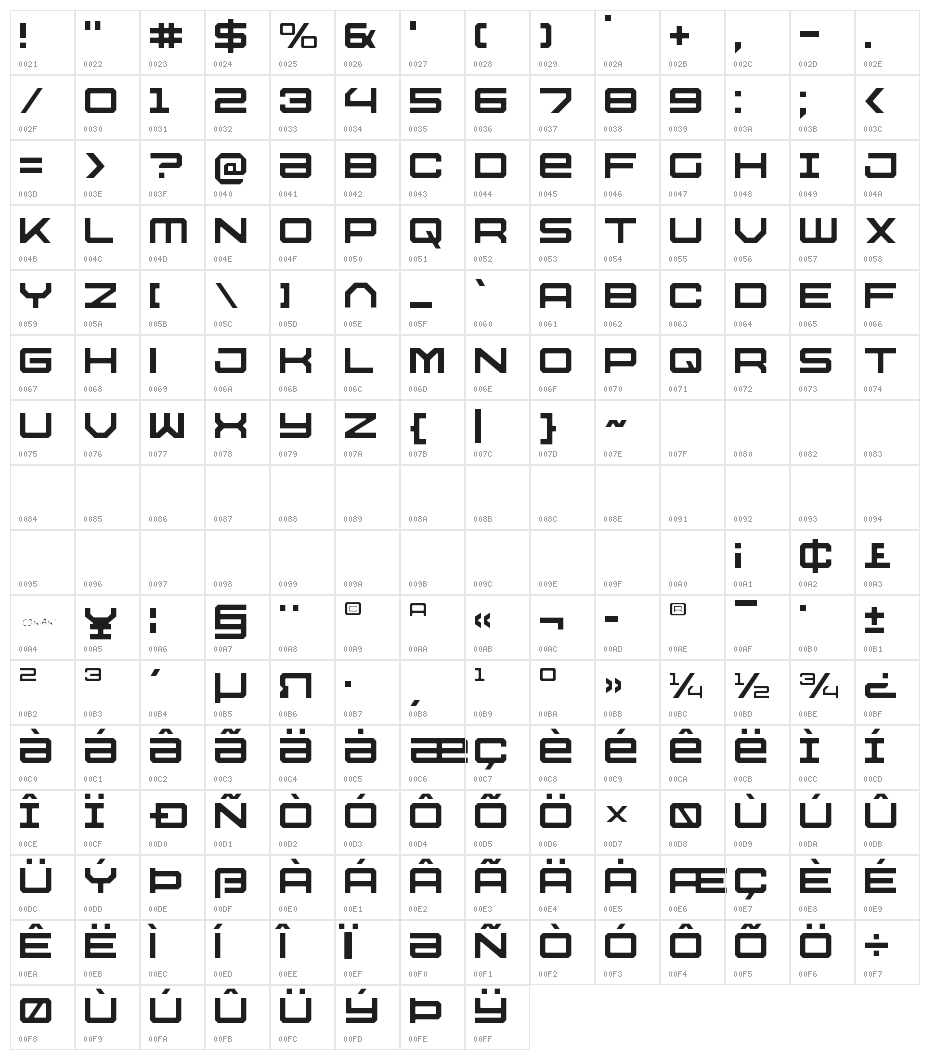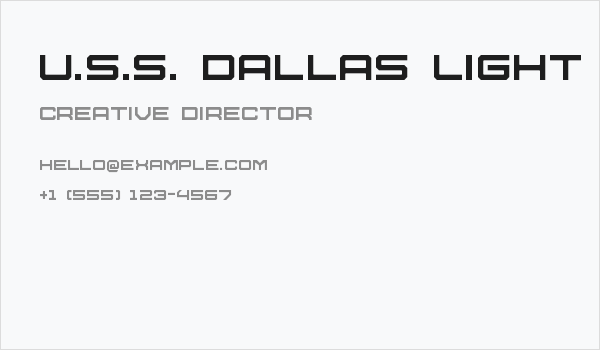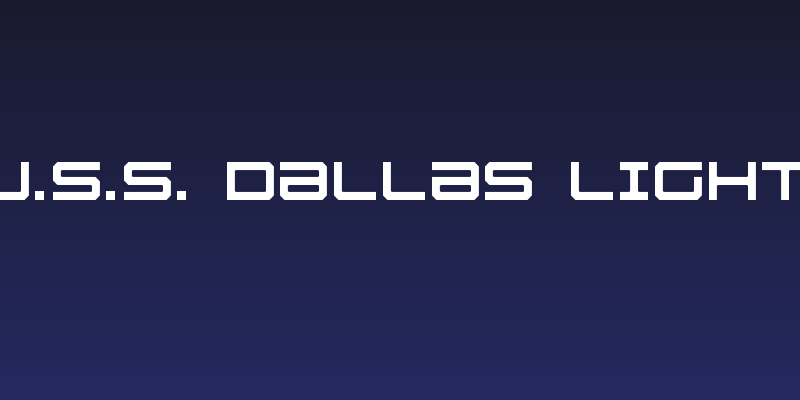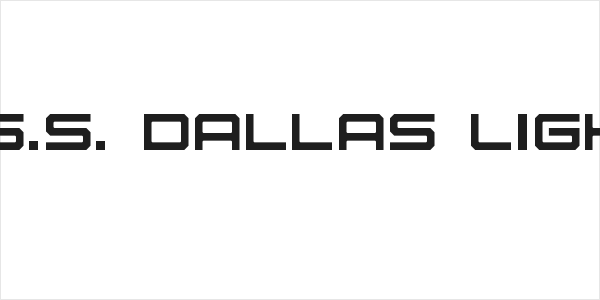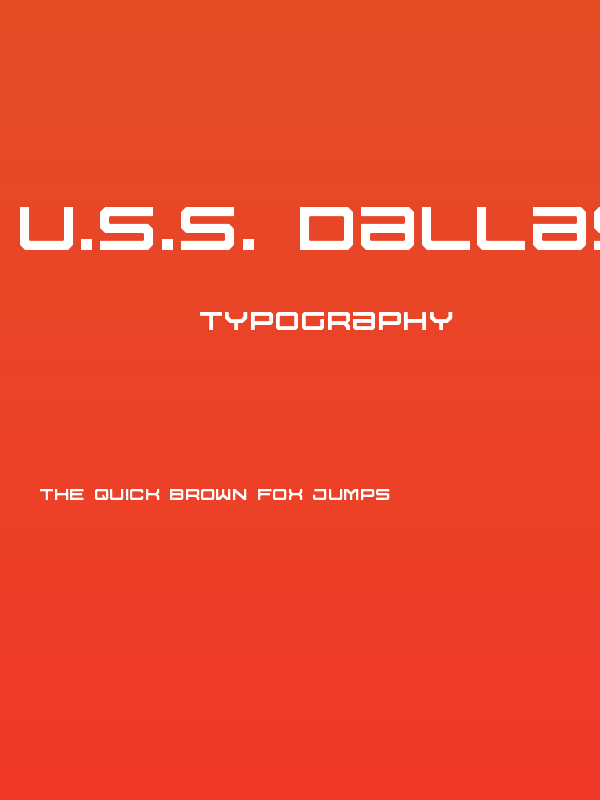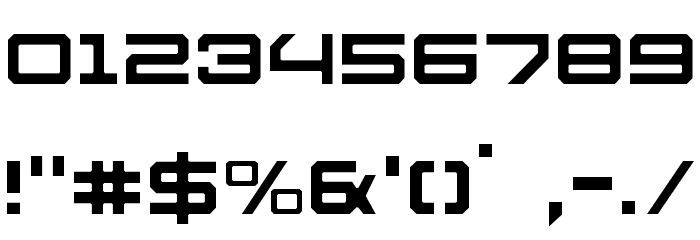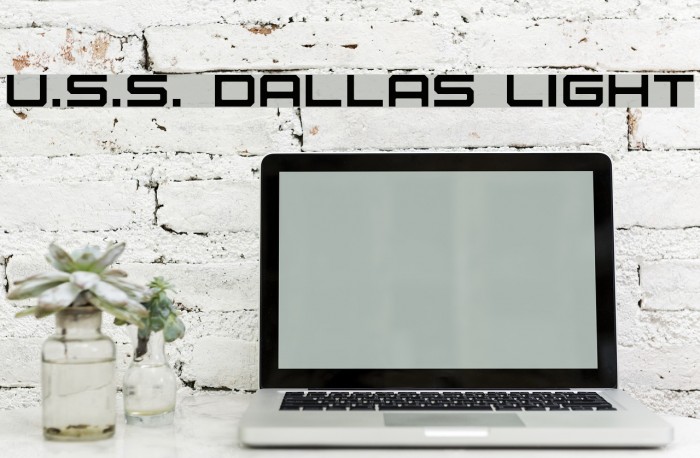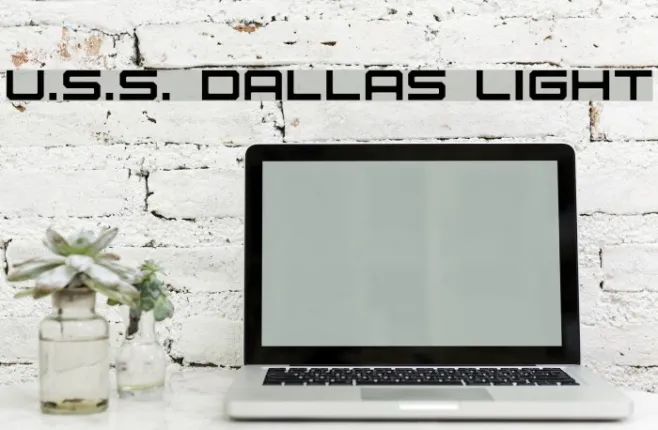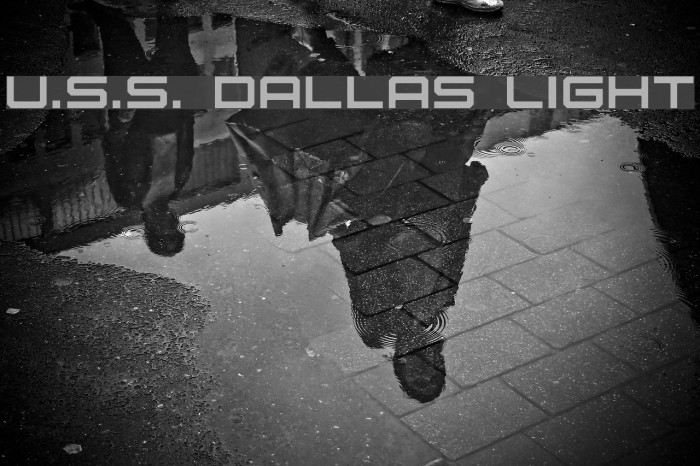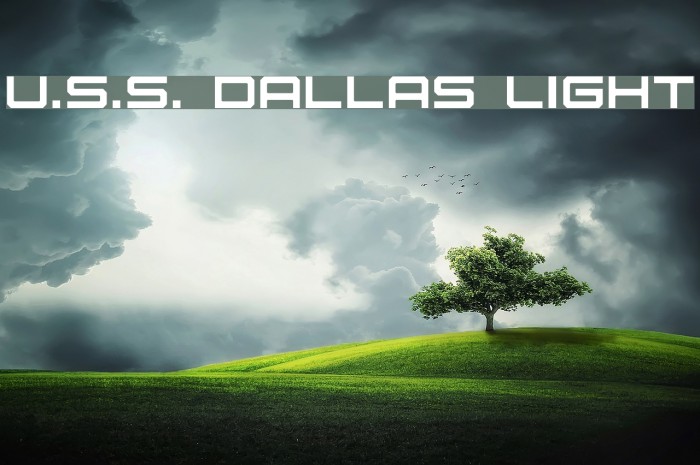
U.S.S. Dallas Light Font
U.S.S. Dallas Light Description
This font features a bold, geometric design with a futuristic and technical appearance. The characters are constructed with straight lines and sharp angles, giving it a mechanical and industrial feel. The uppercase letters are uniform in height, while the lowercase letters maintain a consistent style, enhancing readability. The numerals are distinct and match the overall aesthetic, making them suitable for digital displays or technical documents. Special characters are designed with the same precision, ensuring a cohesive look across all glyphs.
| Use Case | Headlines, Logos, Digital displays |
| Proposed Projects | Ideal for technology branding, digital interfaces, video game design, and sci-fi themed projects. |